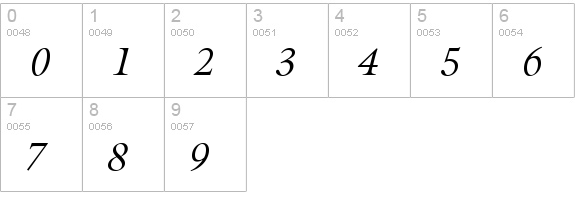
GalliardEF-Italic is a distinctive, italic variant in the GalliardEF typeface family \xE2\x80\x94 well suited to design and typography projects.
Introducing GalliardEF-Italic, a captivating font that effortlessly combines elegance and sophistication. With its graceful curves and delicate strokes, this font exudes a sense of timeless beauty. The italicized design adds a touch of flair, making it perfect for projects that require a touch of creativity and style. GalliardEF-Italic is not only visually stunning but also incredibly versatile. Whether you're designing a logo, creating a website, or crafting a stunning invitation, this font will elevate your work to new heights. Its seamless legibility ensures that your message will be conveyed with clarity and precision. What sets GalliardEF-Italic apart is its accessibility. This font is freely available to download at FontsMarket.com, allowing designers, artists, and enthusiasts alike to add this beautiful typeface to their collection. Embracing the spirit of inclusivity, GalliardEF-Italic empowers individuals to express their creativity without any limitations. The craftsmanship that went into creating GalliardEF-Italic is evident in every letterform. Meticulously designed by talented typographers, this font embodies the perfect balance between tradition and innovation. Its unique blend of classic and contemporary elements makes it a true standout amongst other typefaces. GalliardEF-Italic is a font that commands attention, making it ideal for headlines, titles, and any text that requires a touch of elegance. Its distinct personality adds character to any project, ensuring that your work will stand out from the crowd. So why wait? Experience the beauty and versatility of GalliardEF-Italic today. Visit FontsMarket.com to freely download this exceptional font and unlock a world of possibilities for your creative endeavors. With GalliardEF-Italic, the power to captivate and inspire is at your fingertips.